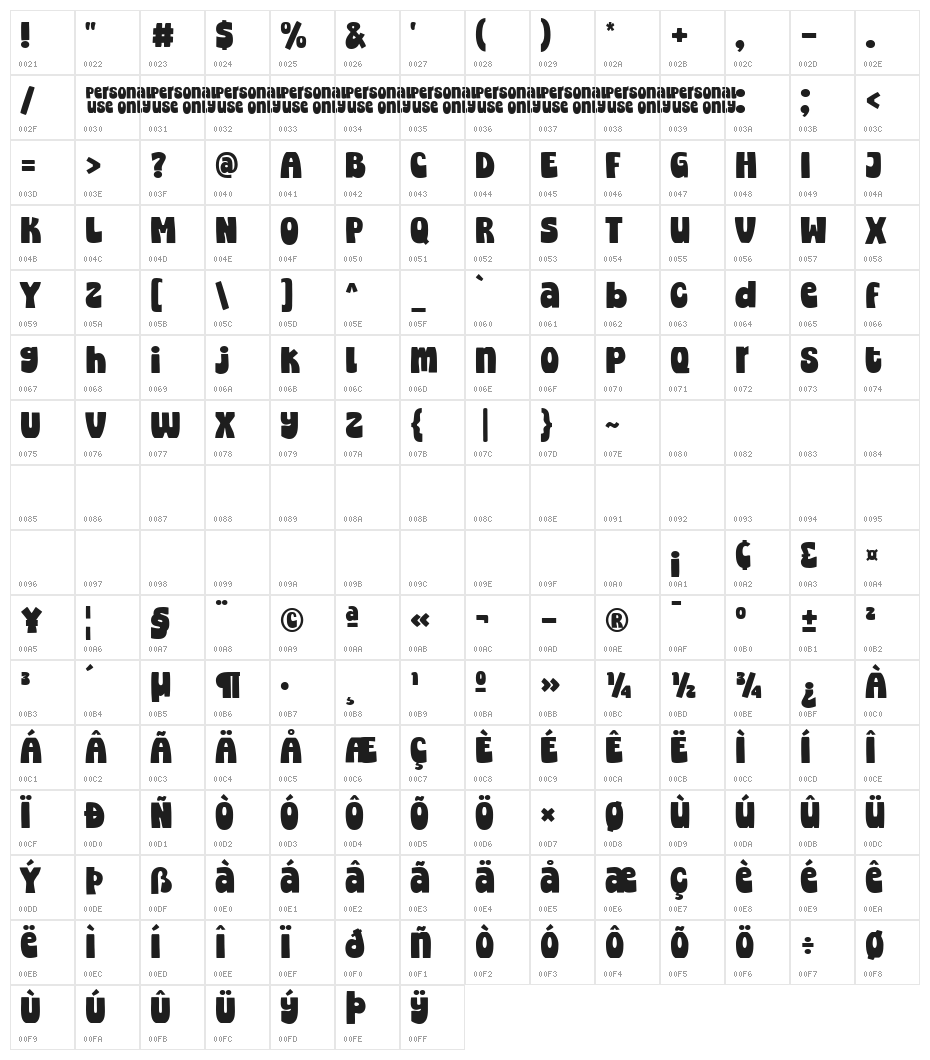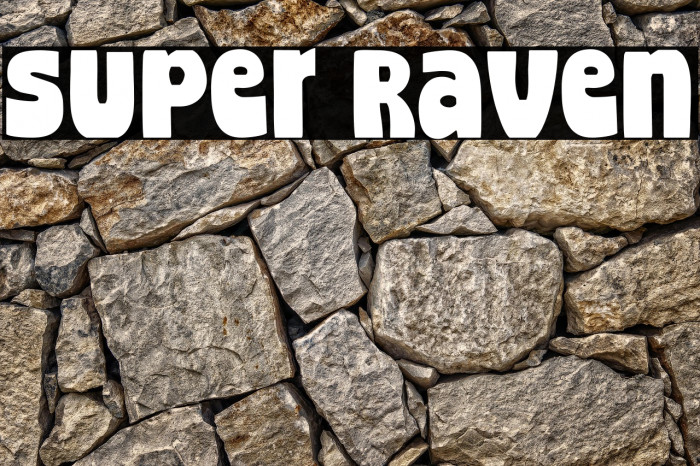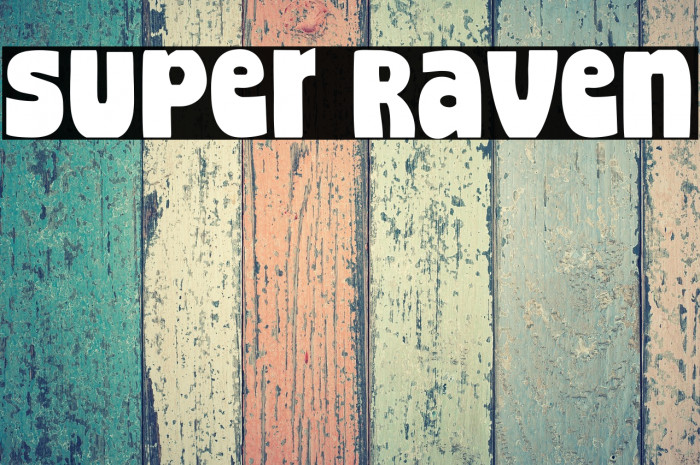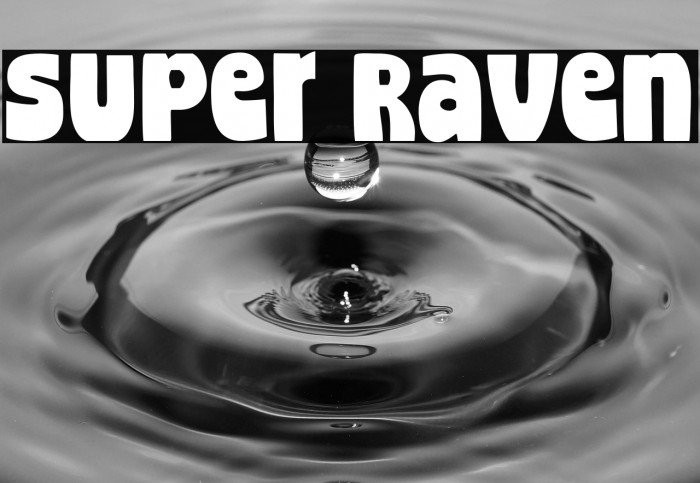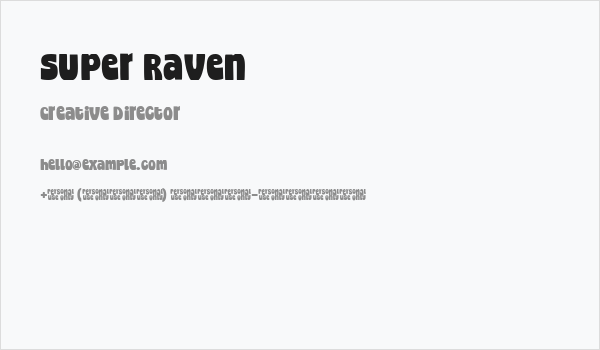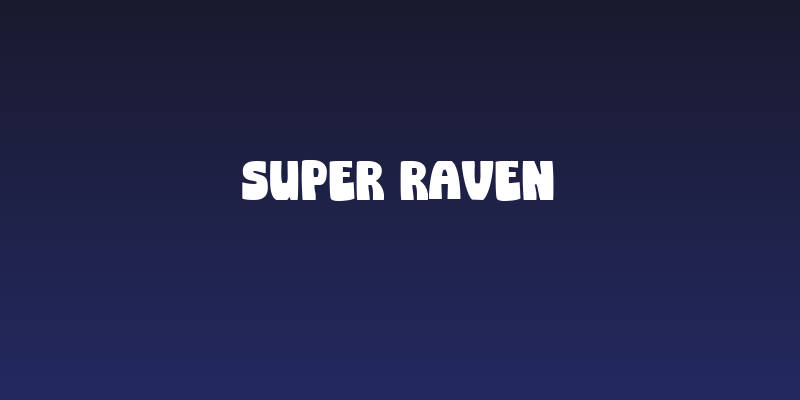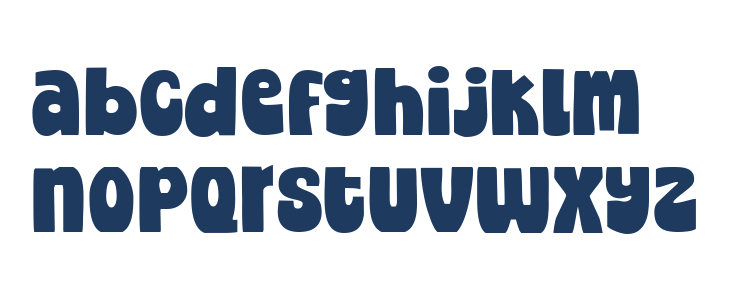
Super Raven Font
Super Raven Description
This font features a bold and playful style with thick, rounded characters that exude a sense of fun and energy. The letters are uniformly wide, creating a consistent and harmonious look. The uppercase and lowercase letters maintain a similar width, contributing to a cohesive appearance. The font includes a full set of numerals and a variety of special characters, making it versatile for different uses. Its unique design is characterized by exaggerated curves and a slightly whimsical feel, ideal for projects that require a touch of creativity and flair.
| Overall Style | Playful, Creative |
| Proposed Projects | Ideal for children's books, playful branding, posters, and creative advertisements. |